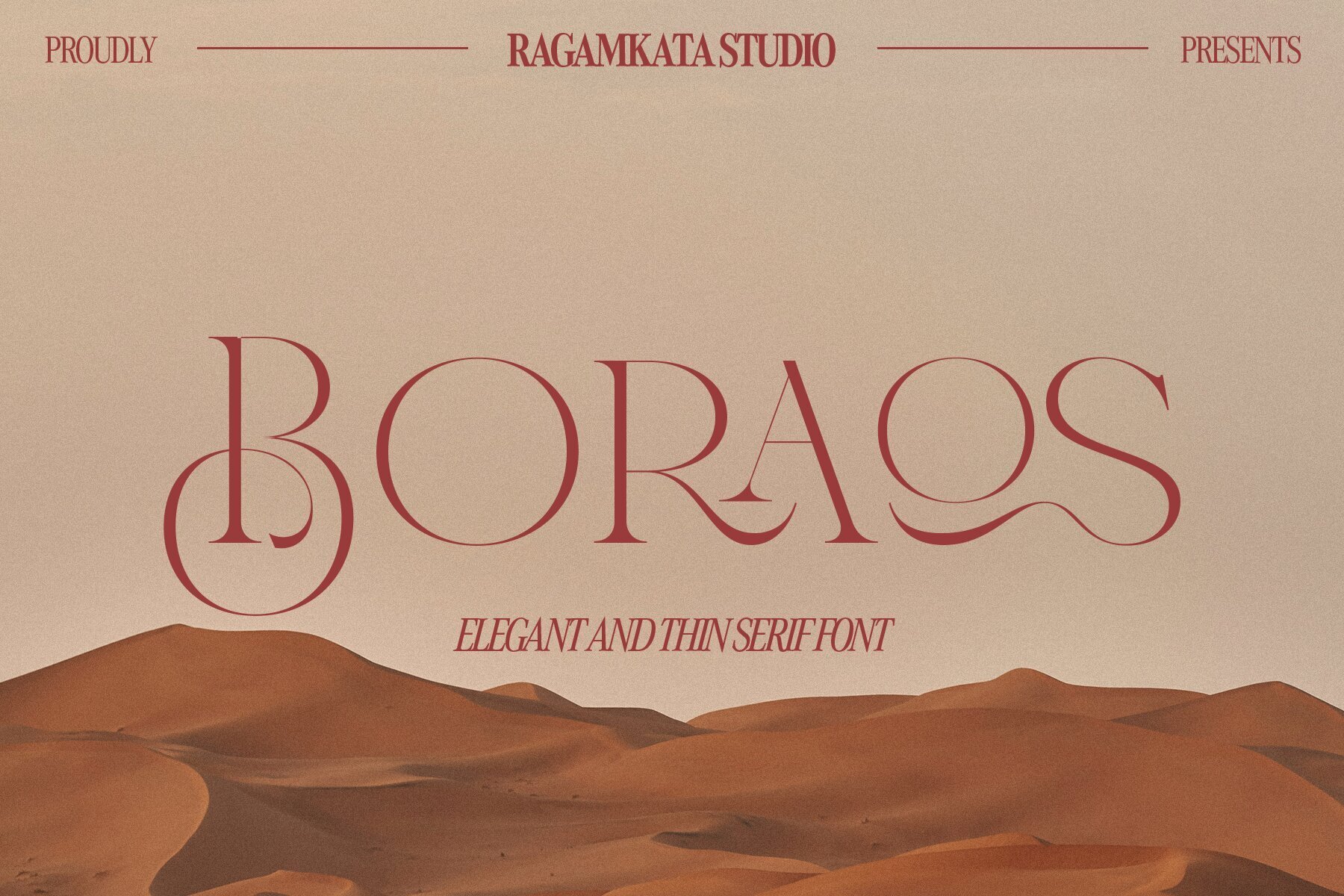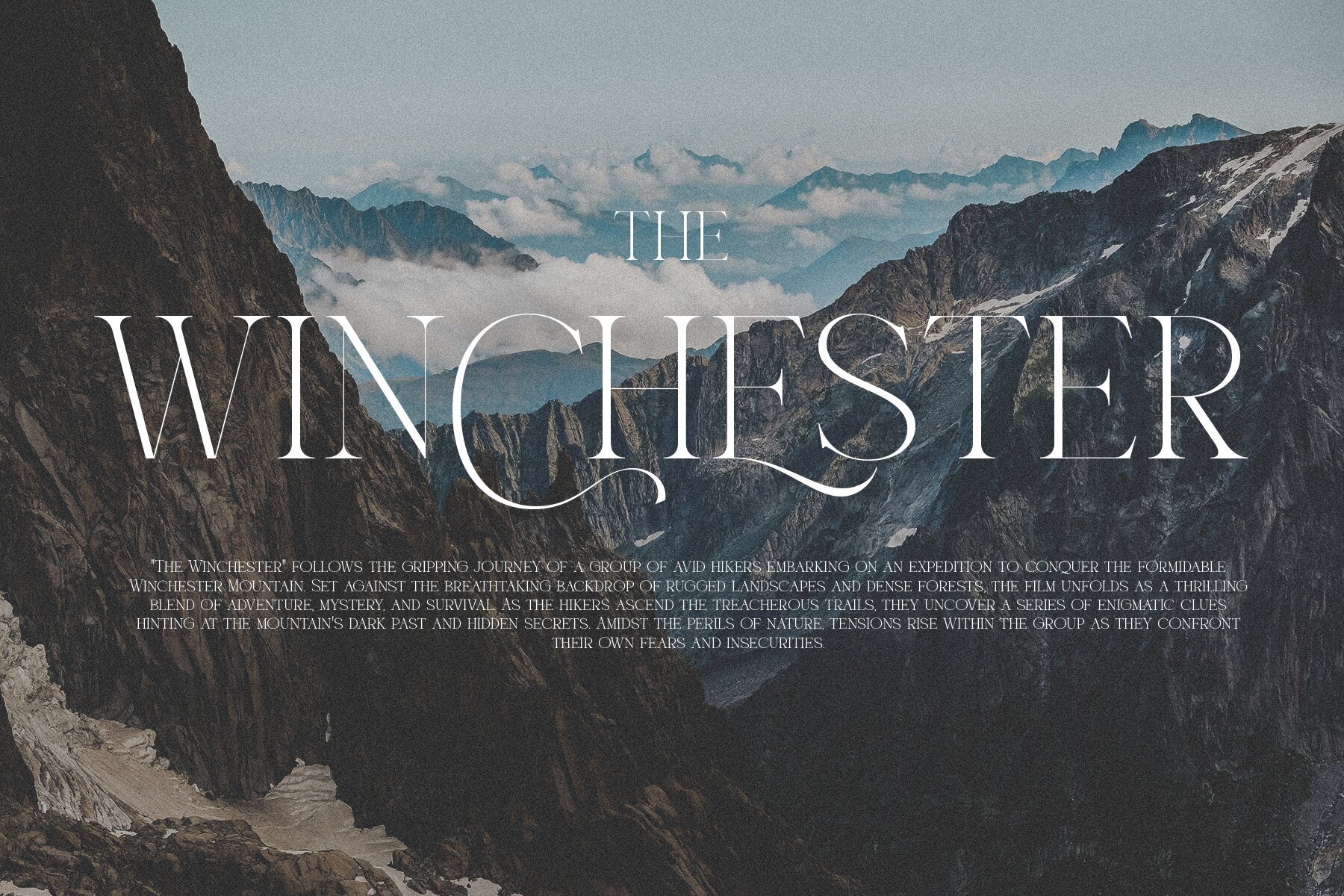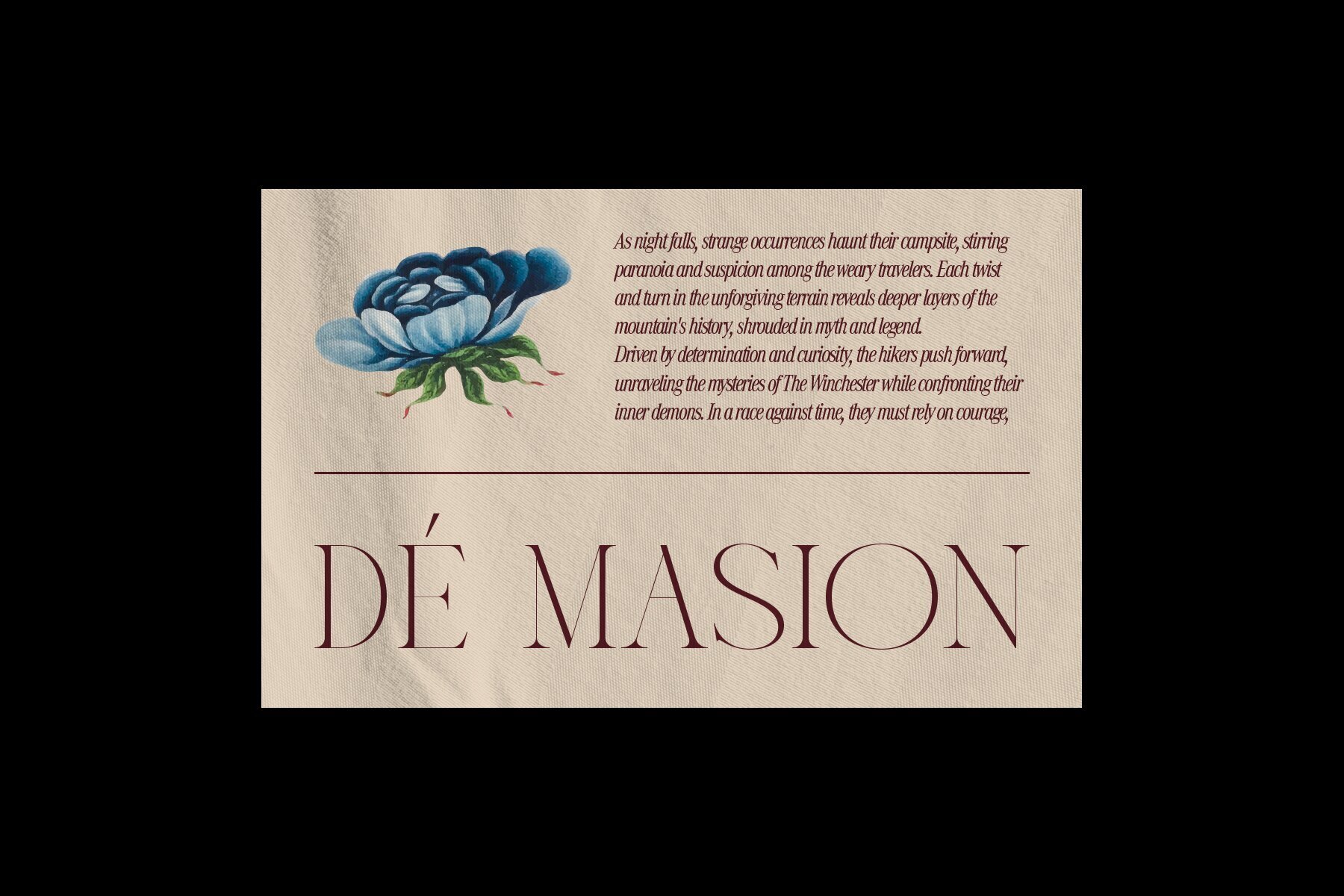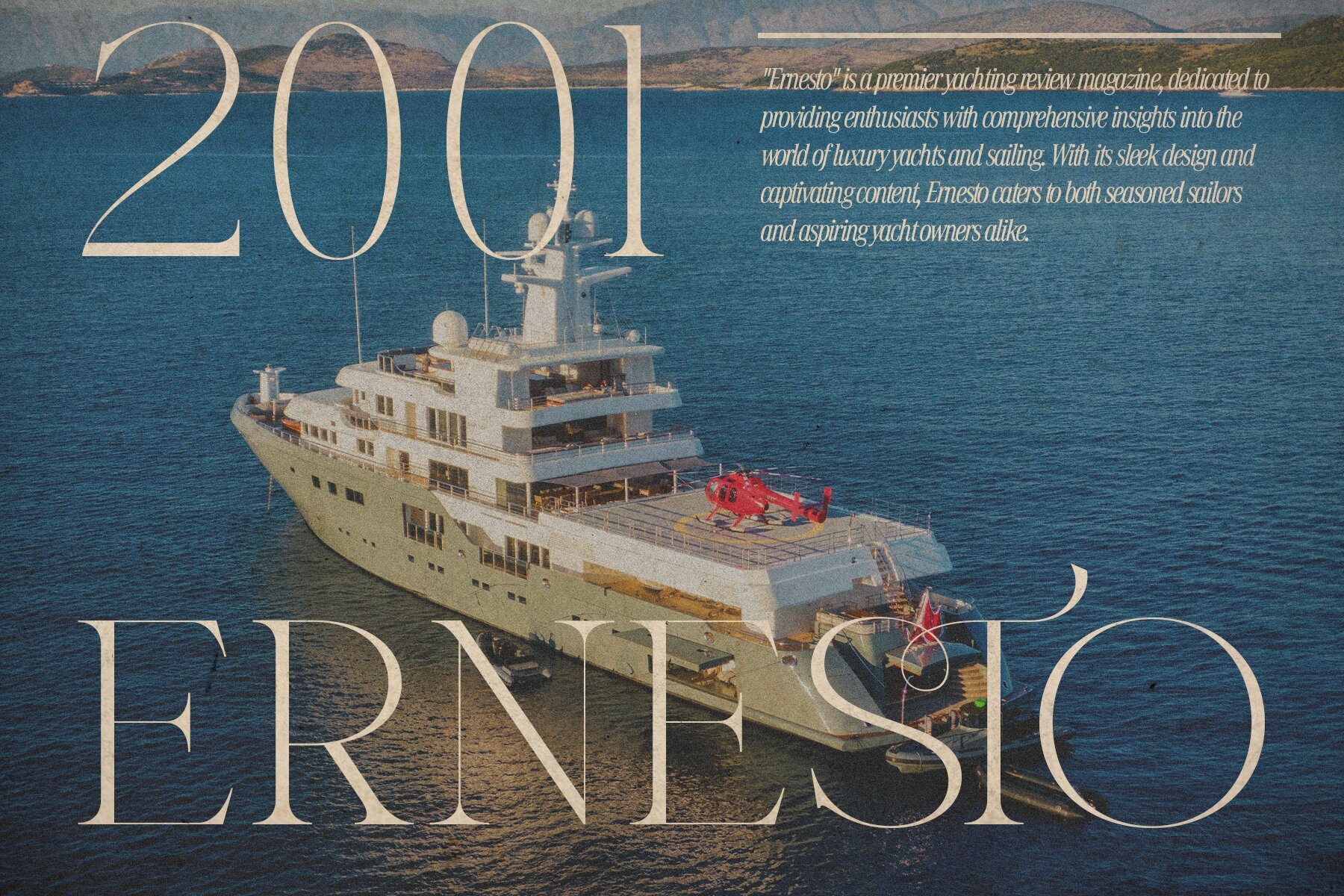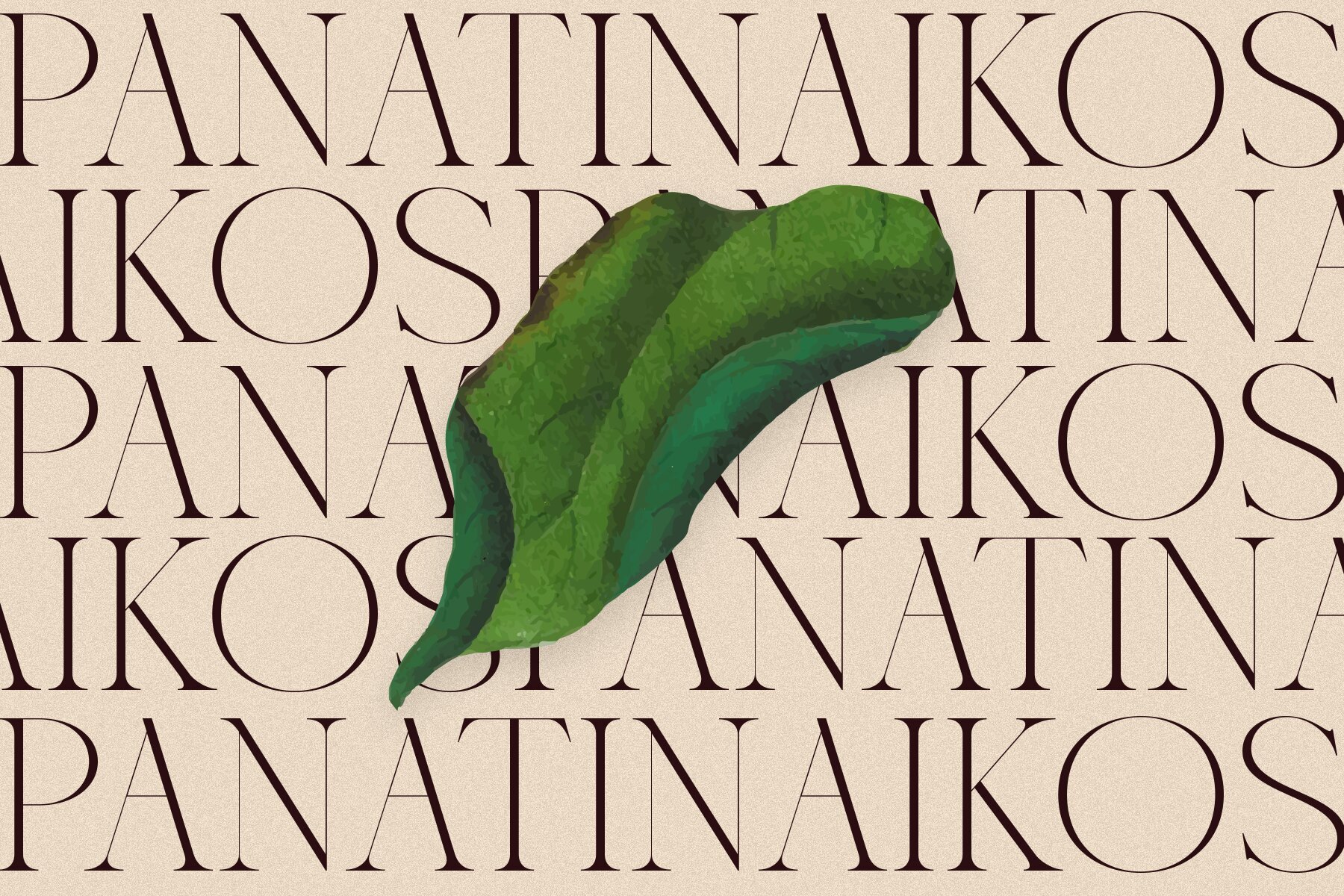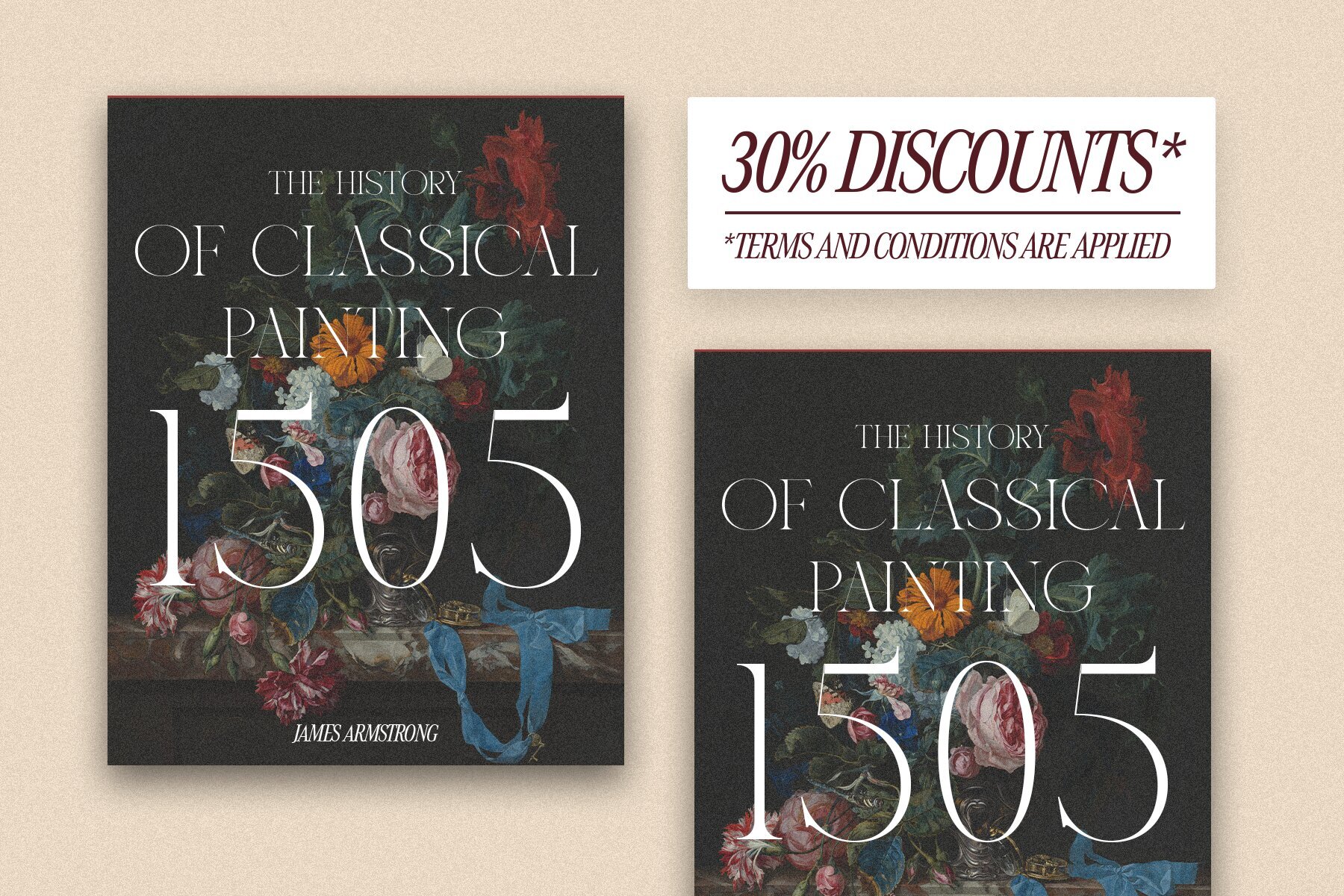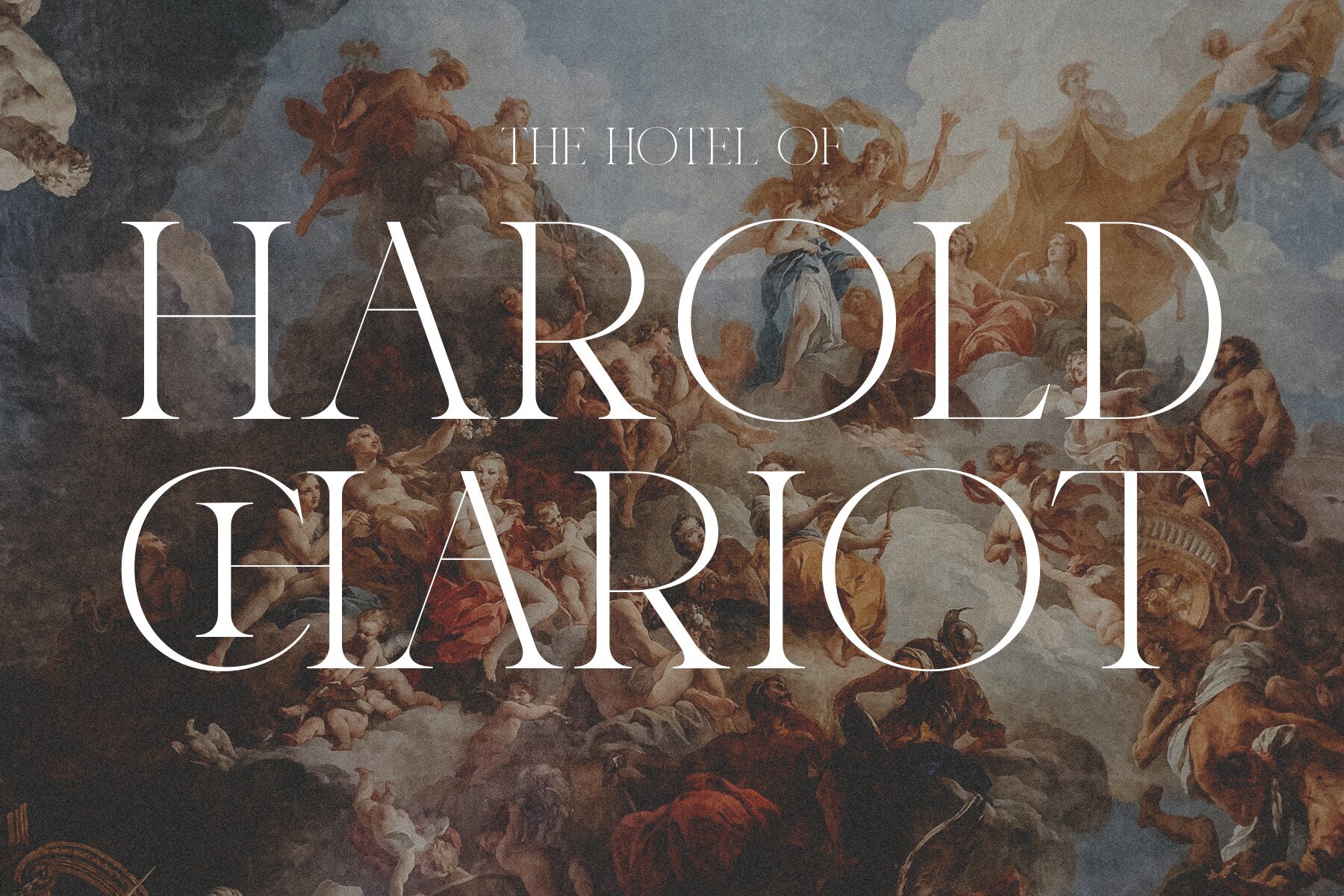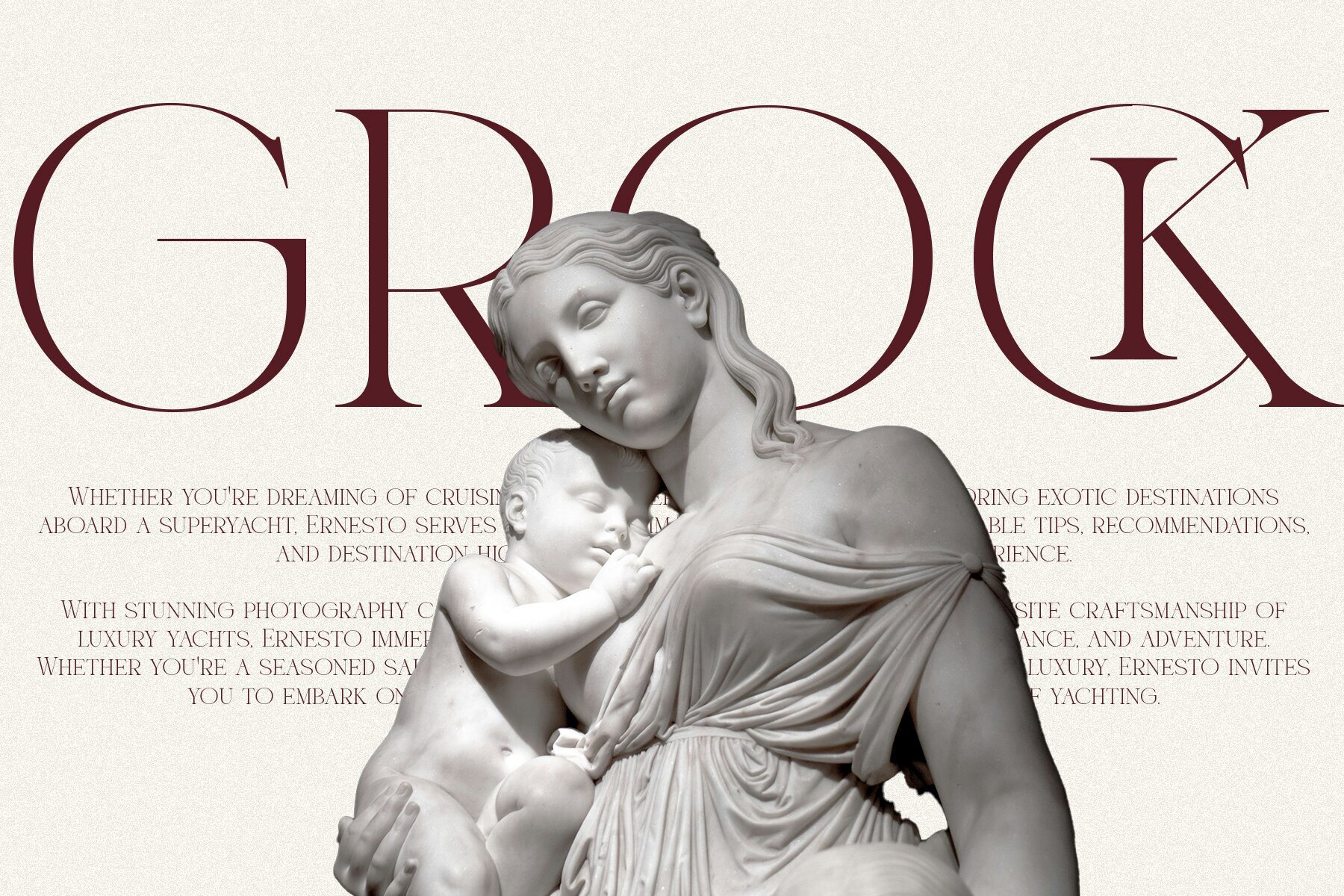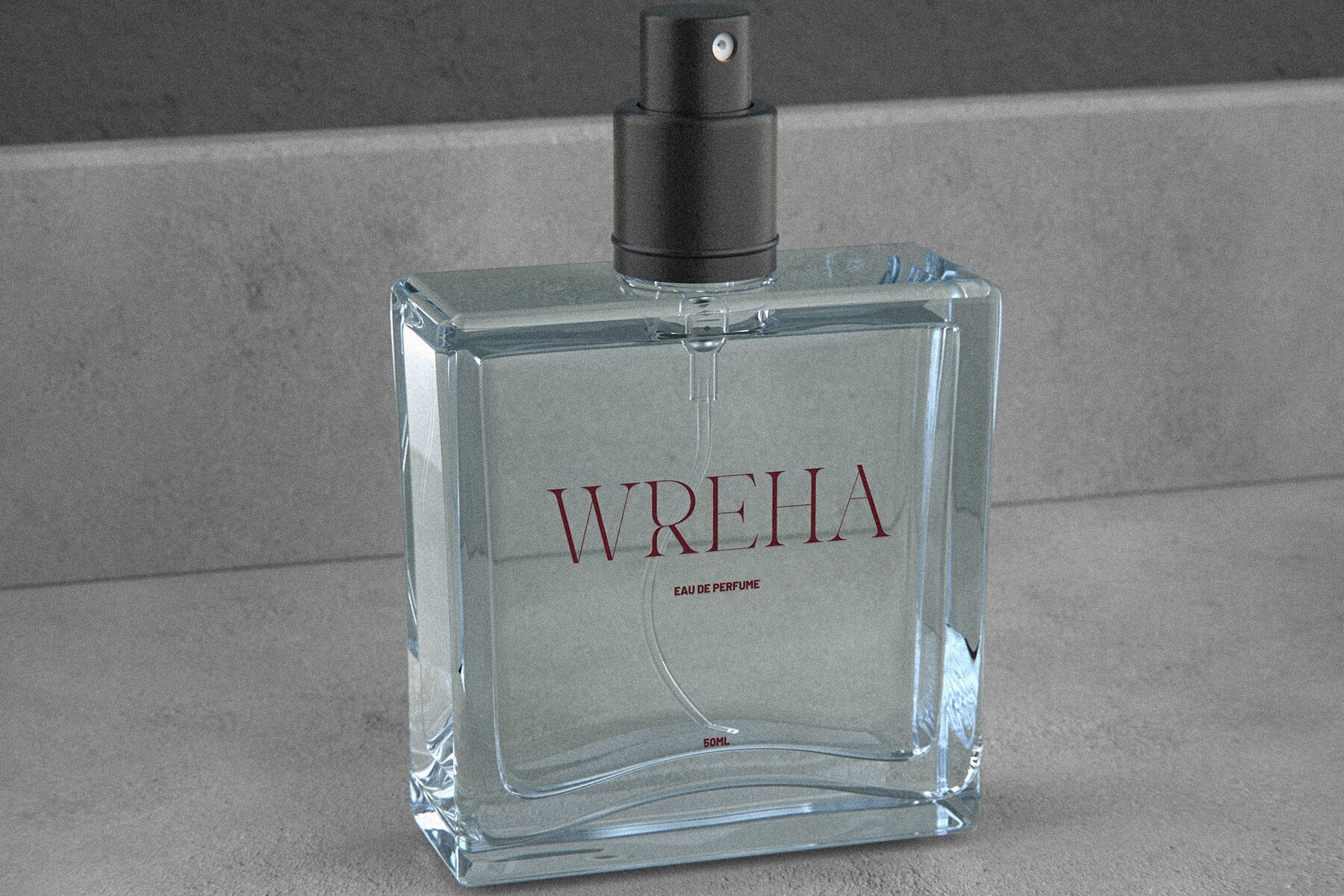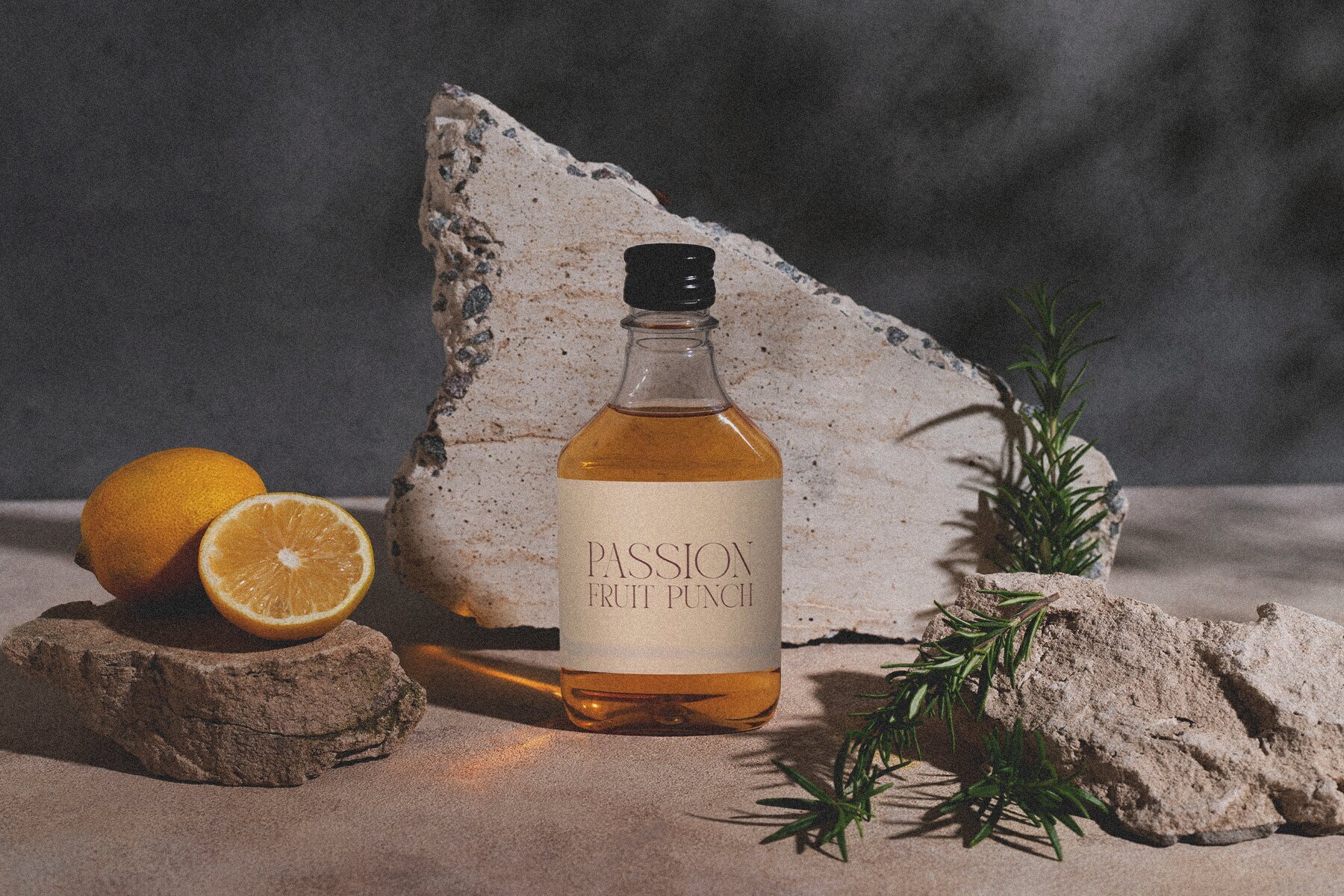
Boraos Font
Boraos is a serif font that embodies refined sophistication and timeless elegance. Its delicate, slender strokes capture the essence of grace and style, making it a perfect choice for modern typography. Designed for projects that demand a touch of class, Boraos balances elegance with readability. The thin serifs and graceful curves make it versatile for a variety of applications, including branding materials and editorial layouts.
Incorporating Boraos into your design toolkit opens up a world of possibilities. It comes in both regular and italic styles and supports multilingual characters, making it broadly useful across diverse projects. The font includes OpenType features like ligatures and alternates, which can be accessed in popular software such as Adobe Illustrator, Photoshop, and InDesign, as well as Microsoft Word. With PUA-encoded characters, Boraos is fully accessible without additional design tools. Make a statement in today’s design landscape with this elegant serif font.